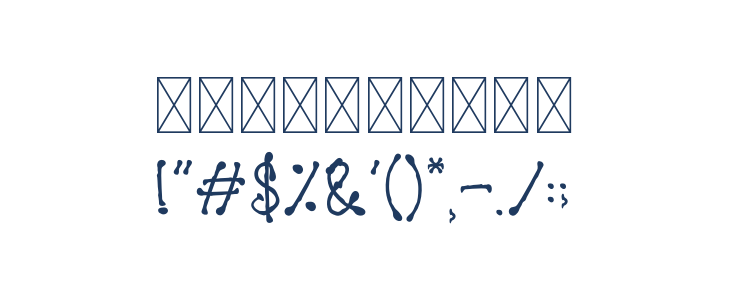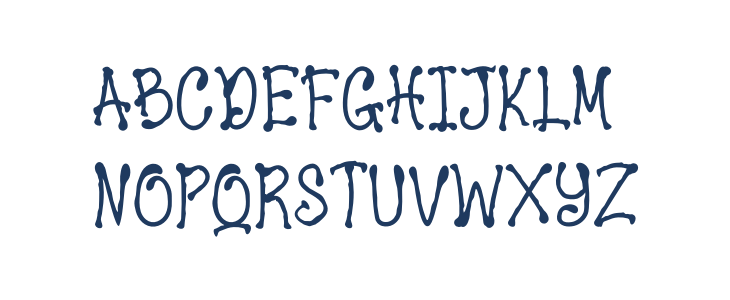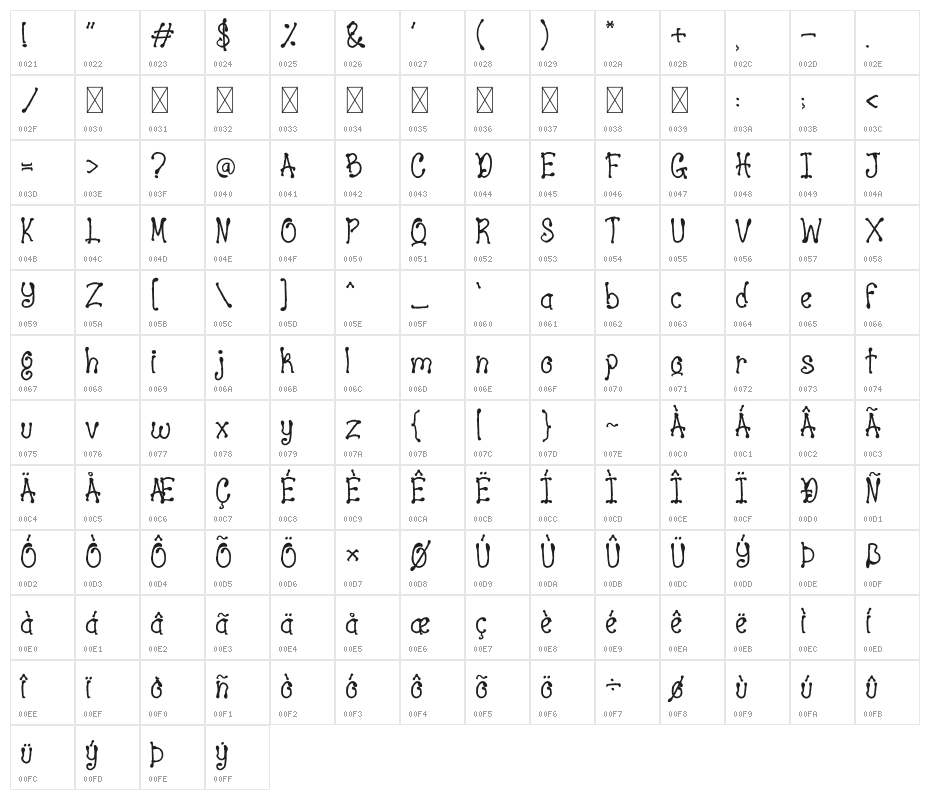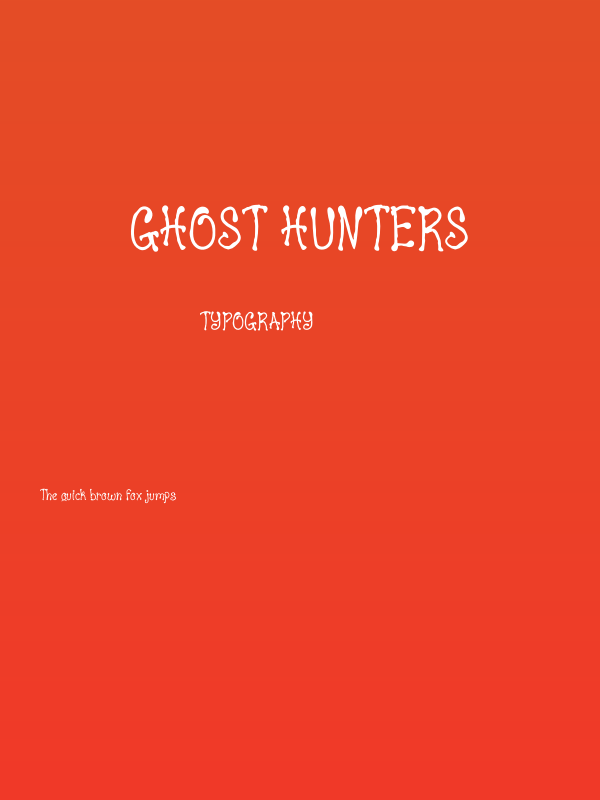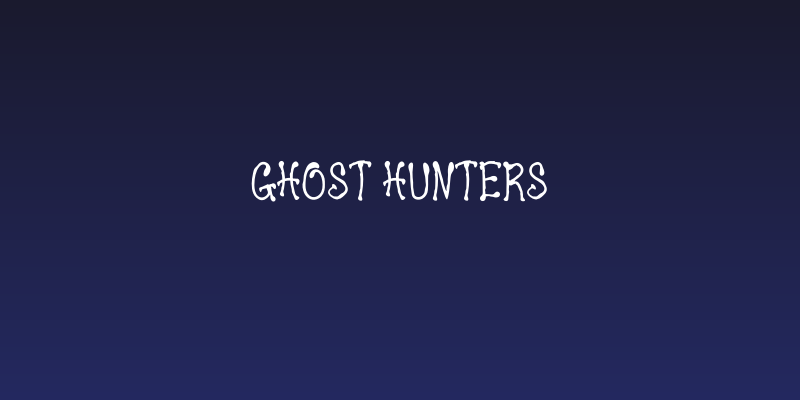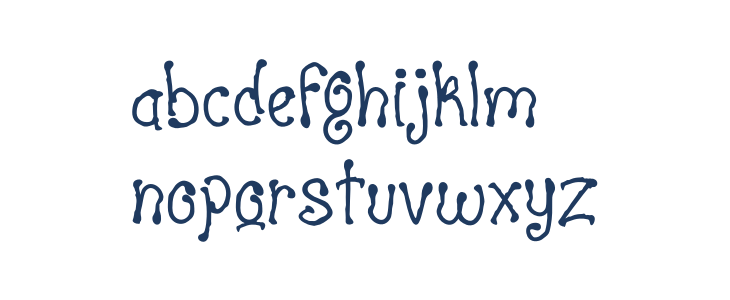
Ghost Hunters Font
| Overall Style | Decorative, Spooky, Playful |
| Use Case | Headlines, Posters, Themed Graphics |
| Proposed Projects | Halloween invitations, haunted house posters, children's spooky storybooks, themed party flyers, decorative signage. |